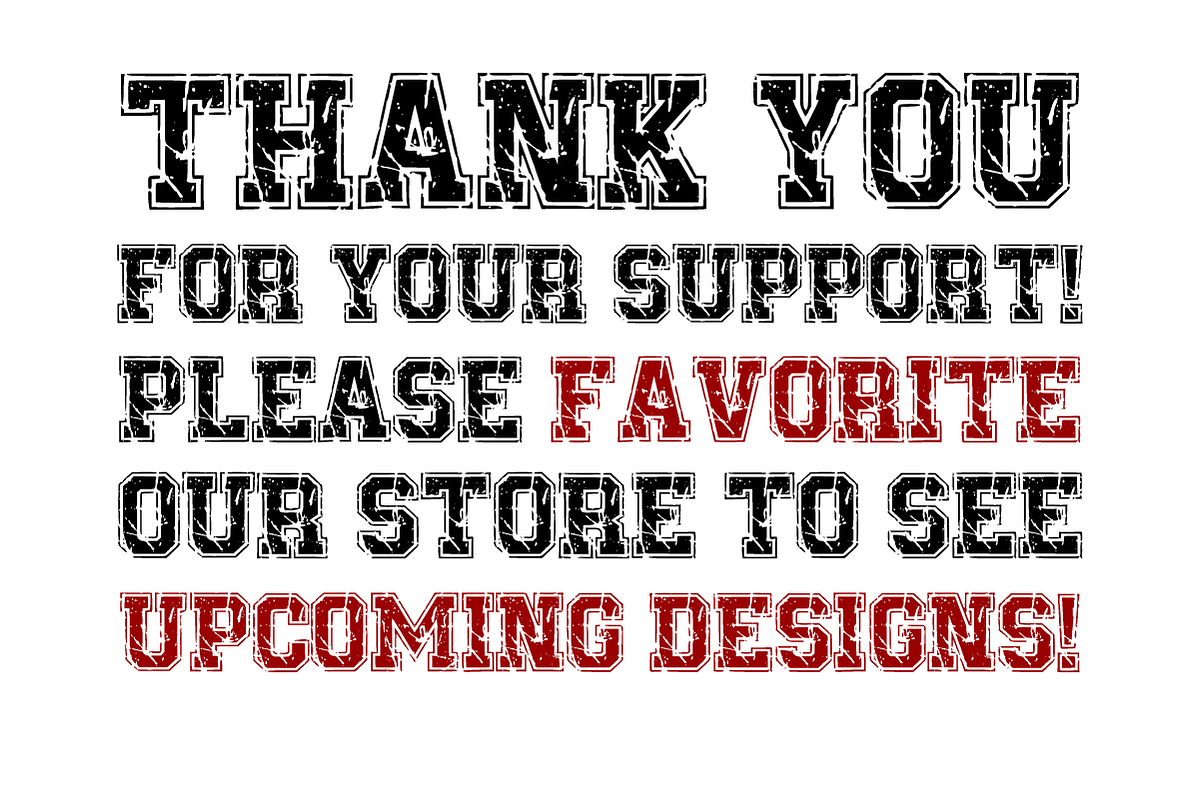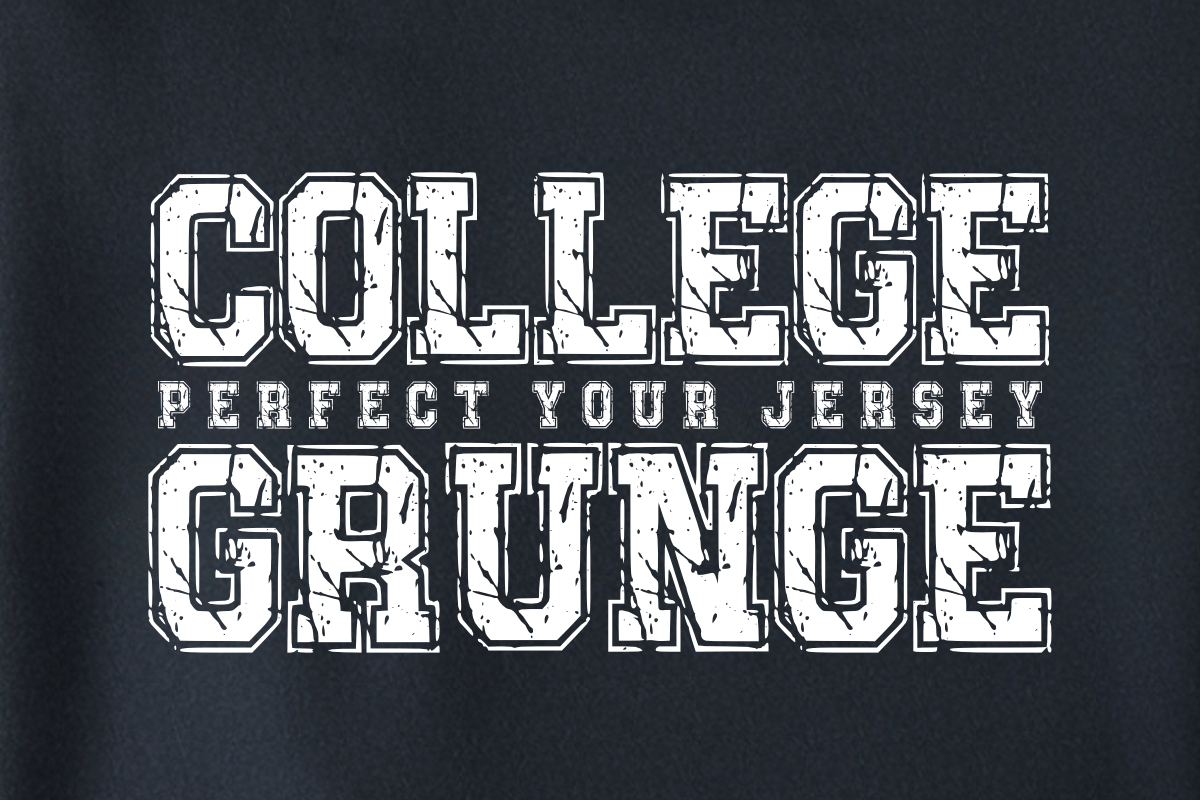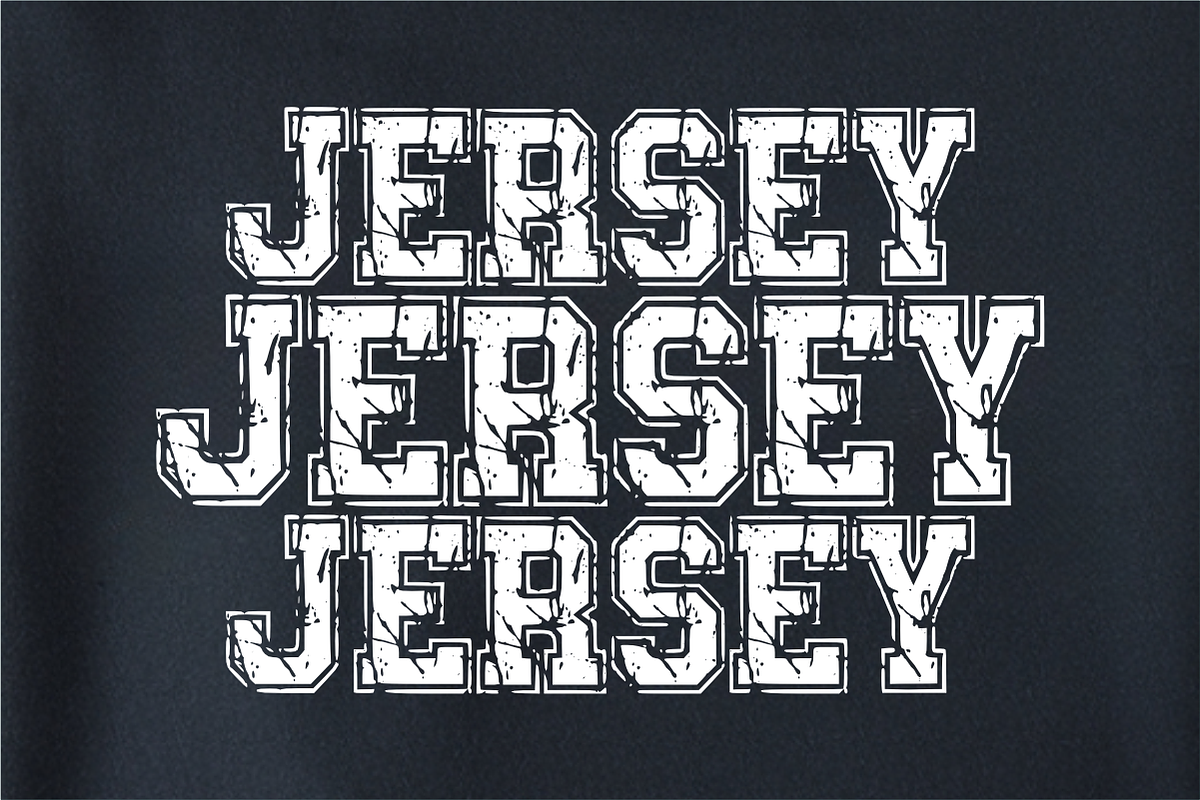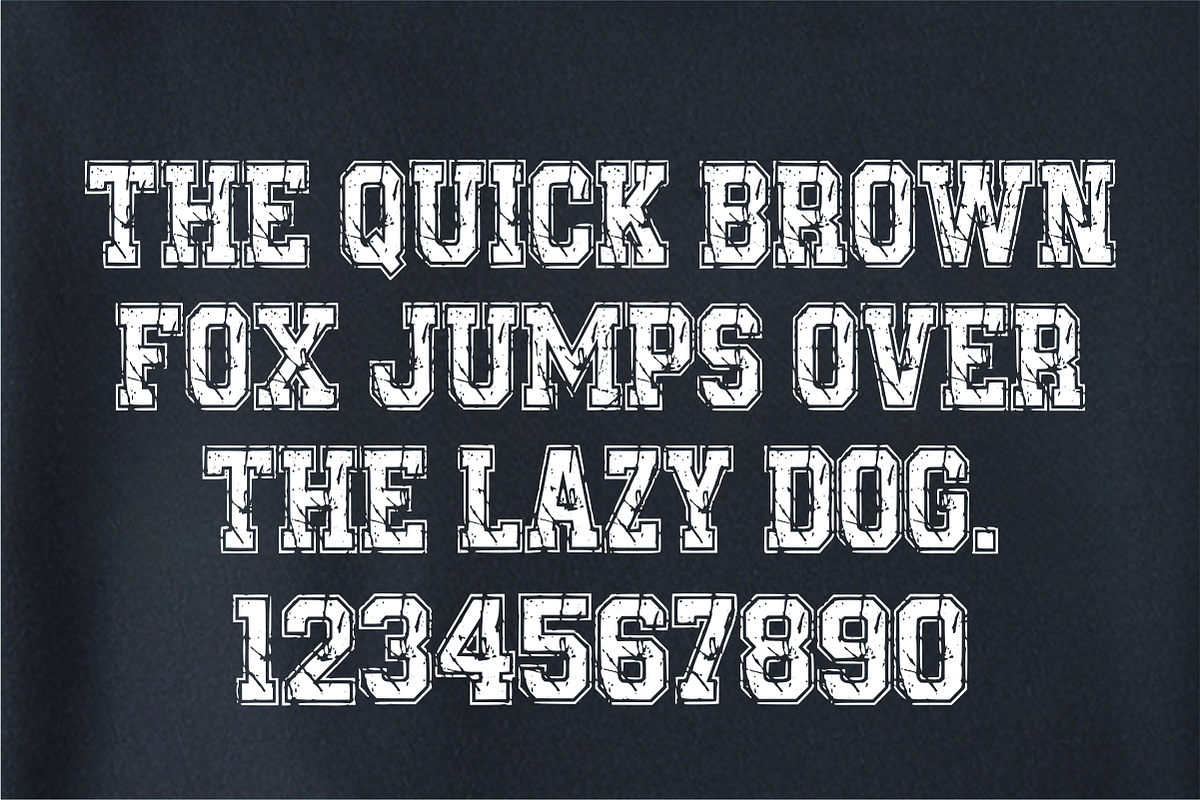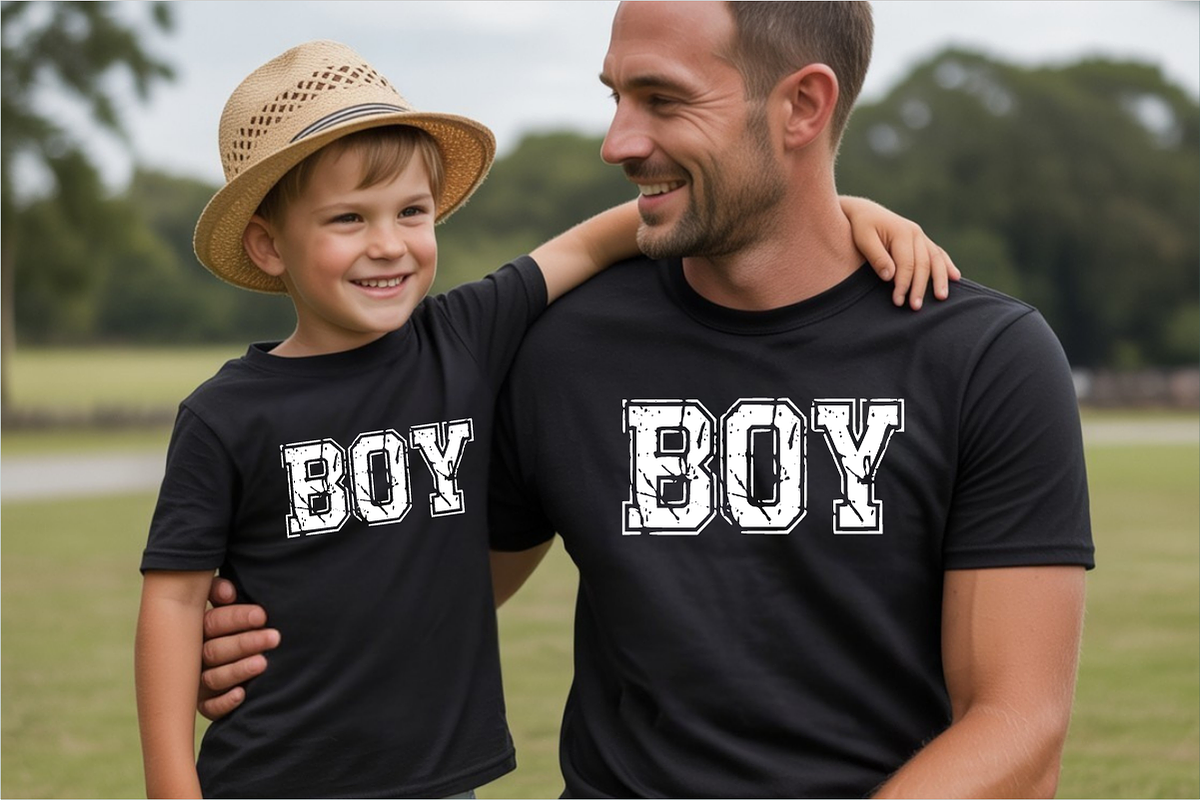
College Grunge –Varsity Display Font
College Grunge – Distressed Athletic & Varsity Display Font 🏆🔥
Give your boldest designs an authentic, weathered edge!
College Grunge is a high-impact display font that combines the classic structure of collegiate block lettering with a raw, distressed texture. Inspired by vintage university sports gear and urban streetwear, this font is designed to deliver a rugged, "grunge" aesthetic without any extra effort. Whether you are creating a jersey for a local team or a high-end streetwear graphic, College Grunge provides a professional, weathered look that stands out instantly.
🌟 Why College Grunge is a Must-Have:
Authentic Distressed Texture: Features a realistic weathered effect built directly into the letters, saving you time on post-processing.
Strong Athletic Profile: Based on iconic varsity block styles, making it perfect for sports-themed projects and urban branding.
Maximum Impact: The extra-bold weight ensures your headlines and titles are readable while commanding full attention.
🎨 Perfect For:
👕 Streetwear & Apparel: Create edgy t-shirt designs, hoodies, and varsity-style jackets with a vintage soul.
🏀 Sports Branding: Ideal for team logos, jerseys, and promotional posters for athletic events.
🖼️ Posters & Headers: Perfect for gym advertisements, concert flyers, and bold website banners.
📸 Social Media Content: Stand out on Instagram and YouTube with powerful, gritty headlines.
🏷️ Product Packaging: Great for rugged outdoor goods, men's grooming products, or craft beer labels.
Character Set: Powerful All-Caps Uppercase Letters (A-Z) with detailed grunge textures.
Numbers & Symbols: Complete set of numerals (0-9) and essential simple punctuation.